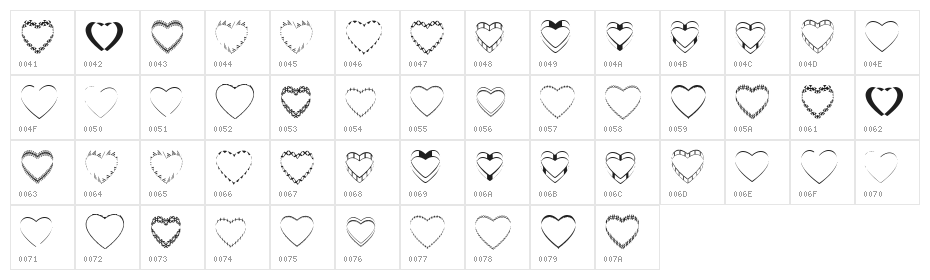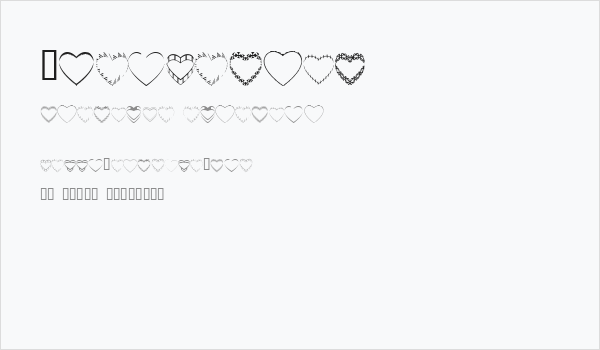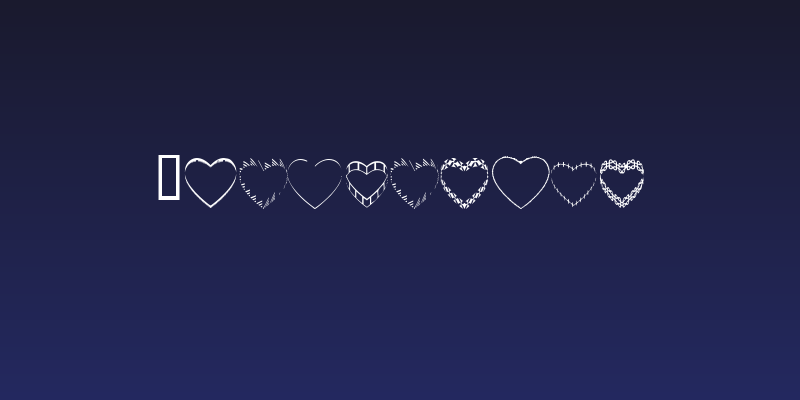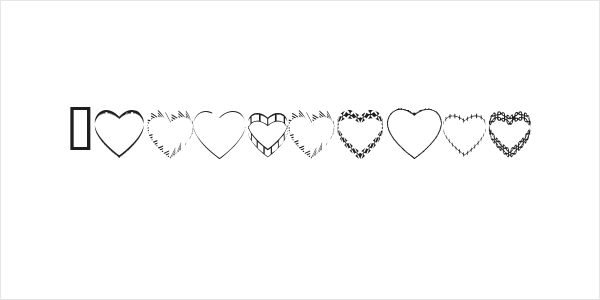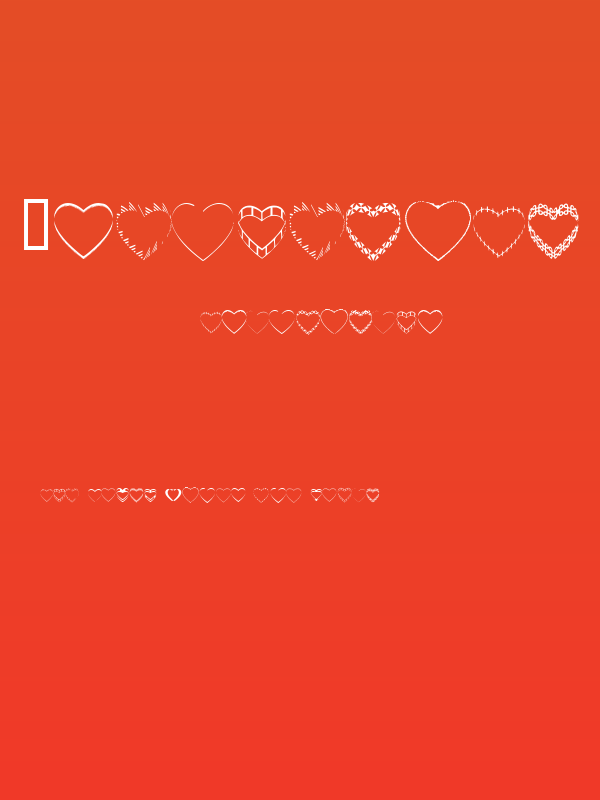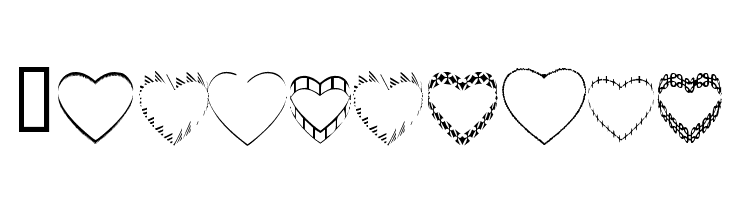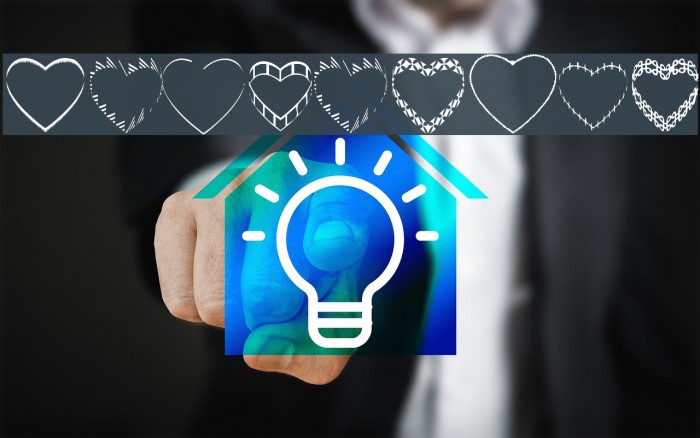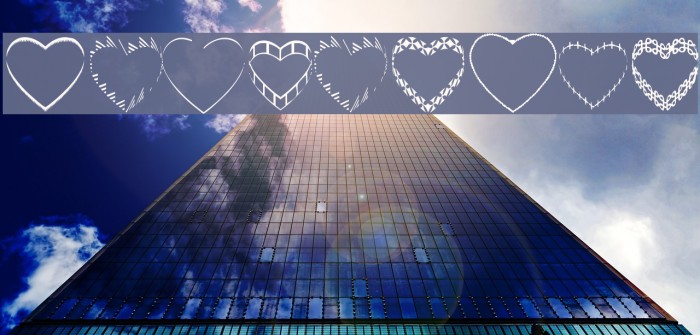
4YEOhearts Font
4YEOhearts Description
A decorative font composed entirely of heart-shaped glyphs with various patterns and outlines, including filled, outlined, textured, and stylized designs. The numerals and symbols are represented by bold rectangular shapes, differing from the heart motif of the alphabetic characters.
| Overall Style | Decorative, Playful, Thematic |
| Use Case | Logos, Headlines, Themed graphics, Crafts |
| Proposed Projects | Valentine's Day cards, romantic event invitations, playful posters, themed crafts, decorative headings. |